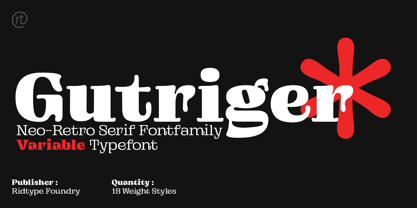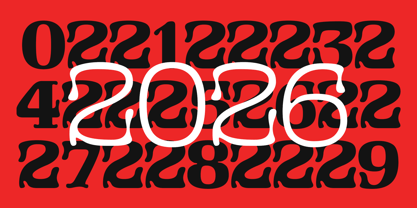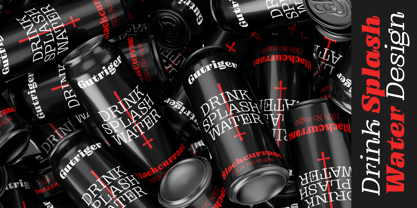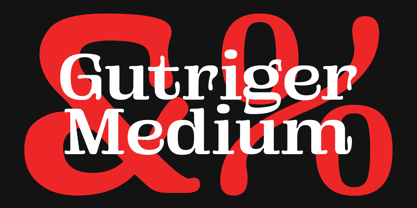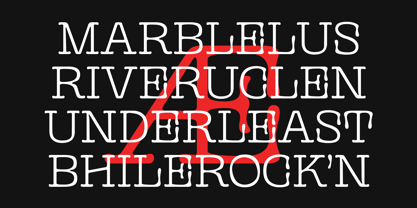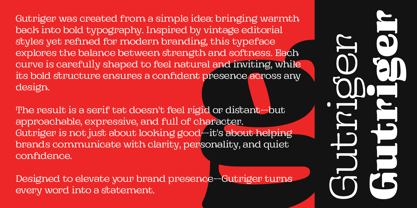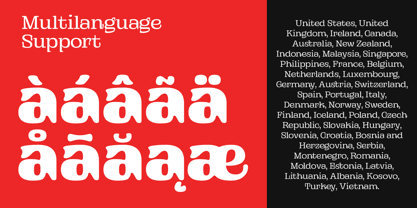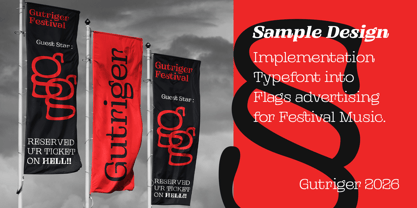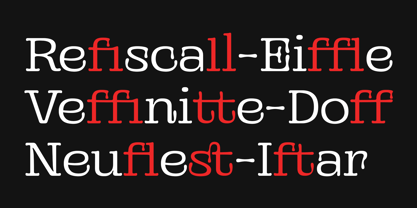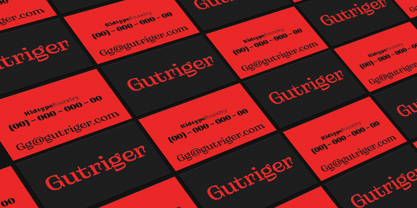
Gutriger
by Ridtype
The Gutriger Font Family was designed by Ridwan Fadilah and published by Ridtype. Gutriger contains 19 styles and family package options. More about this family
Gutriger was created from a simple idea: bringing warmth back into bold typography. Inspired by vintage editorial styles yet refined for modern branding, this typeface explores the balance between strength and softness. Each curve is carefully shaped to feel natural and inviting, while its bold structure ensures a confident presence across any design. The result is a serif that doesn’t feel rigid or distant—but approachable, expressive, and full of character. Gutriger is not just about looking good—it’s about helping brands communicate with clarity, personality, and quiet confidence. Designed to elevate your brand presence—Gutriger turns every word into a statement.
Designers: Ridwan Fadilah
Foundry: Ridtype